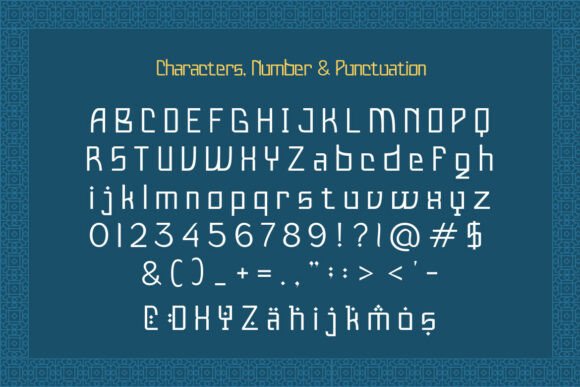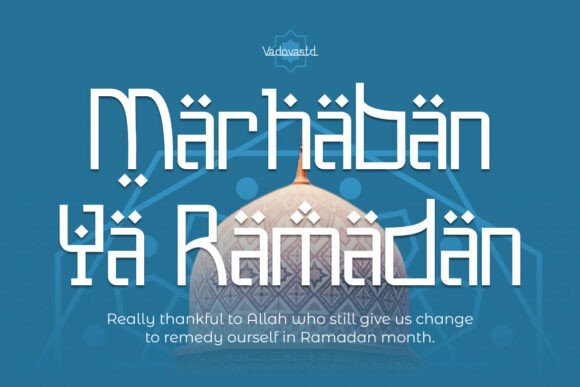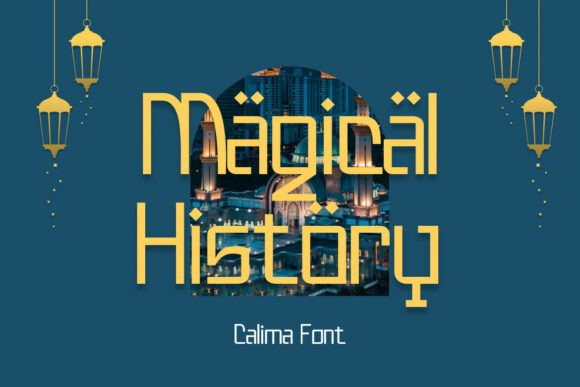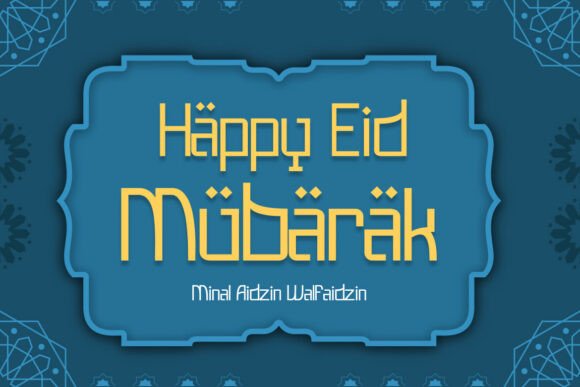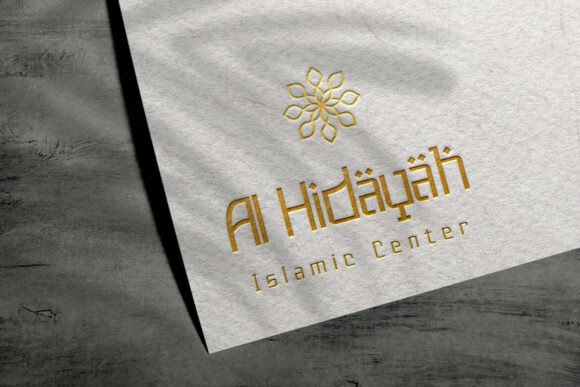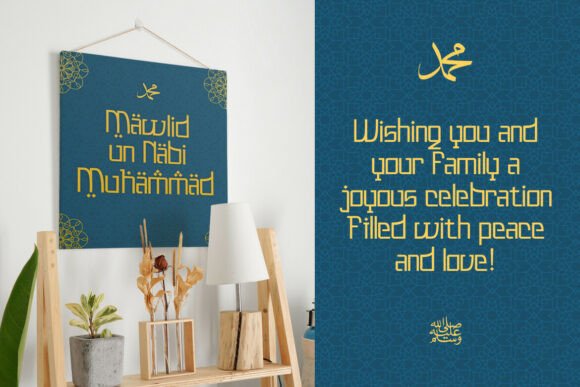
The Power of Calima: Unleashing Bold, Architectural Typography
I still remember the design project that led me to discover the Calima font. I was working on a branding campaign for a cultural center, and my client requested a bold, eye-catching title that would reflect the center’s Islamic heritage. As I scrolled through font libraries, I stumbled upon Calima – an Islamic-style font that immediately caught my attention. Its strong verticality and block-like construction seemed to scream “architectural signage.” I was excited to dive in and explore its capabilities.
- ✅ Unique stacked diacritics: Calima’s distinctive approach to diacritics adds an extra layer of visual interest to your text.
- ✅ Architectural presence: This font’s sturdy, block-like construction makes it perfect for large-scale signage and bold headlines.
- ✅ Kufic inspiration: Calima’s roots in Kufic script lend it an air of authenticity and cultural sensitivity.
- ✅ Versatility: Despite its bold nature, Calima can be used for a range of applications, from cinematic titles to heavy-duty cultural branding.
Small Quirks and Limitations ⚠️
While Calima is an excellent font, it’s not without its quirks. For example:
- 🤔 Legibility at small sizes: Calima’s bold nature can make it challenging to read at smaller font sizes. Be sure to test it thoroughly in your design.
- 🤔 Limited suitability for body text: Due to its boldness and architectural style, Calima is best used for headlines and titles rather than extended body text.
The Story Behind Calima
Calima’s design is inspired by the rich cultural heritage of Islamic calligraphy. Its creator drew inspiration from traditional Kufic script, which dates back to the 7th century. By combining the elegance of Kufic with a bold, architectural approach, Calima was born – a font that’s both culturally sensitive and visually striking.
| Font Name | Calima Font |
| Author | Vadova Std |
| What is Calima’s primary use case? | Calima is best used for architectural signage, heavy-duty cultural branding, and cinematic titles. |
| Is Calima suitable for body text? | No, Calima is best used for headlines and titles due to its bold nature and limited legibility at small sizes. |
| Does Calima support OpenType features? | Yes, Calima supports a range of OpenType features, including stylistic alternates, ligatures, and glyphs. |